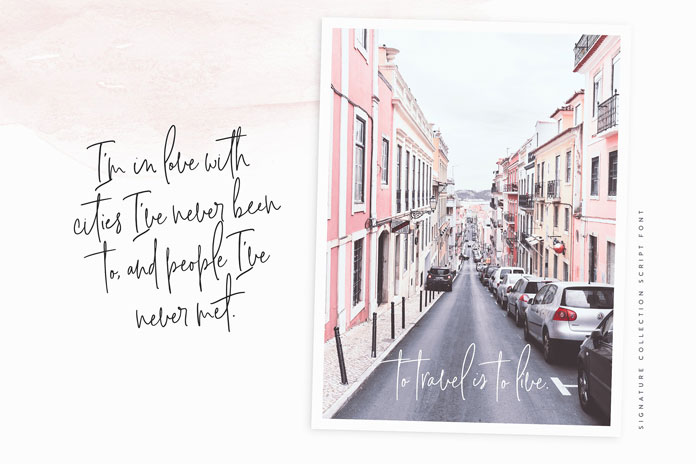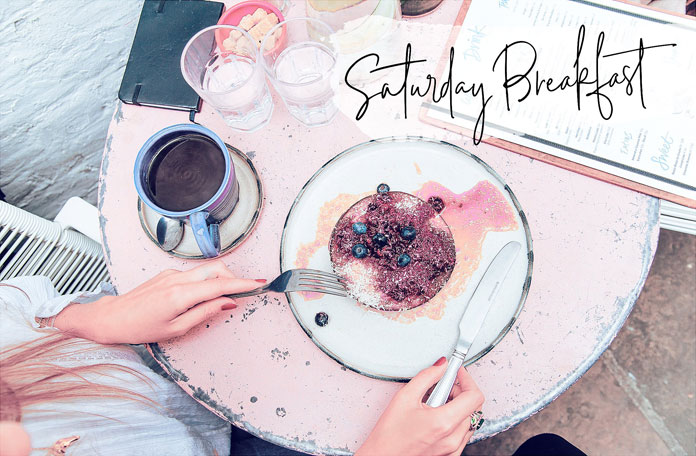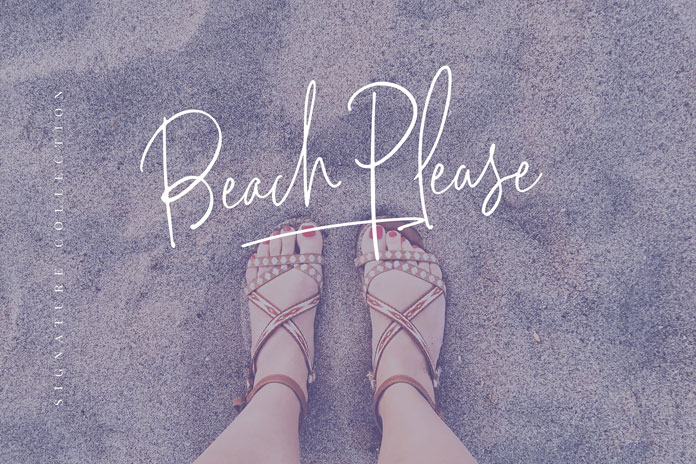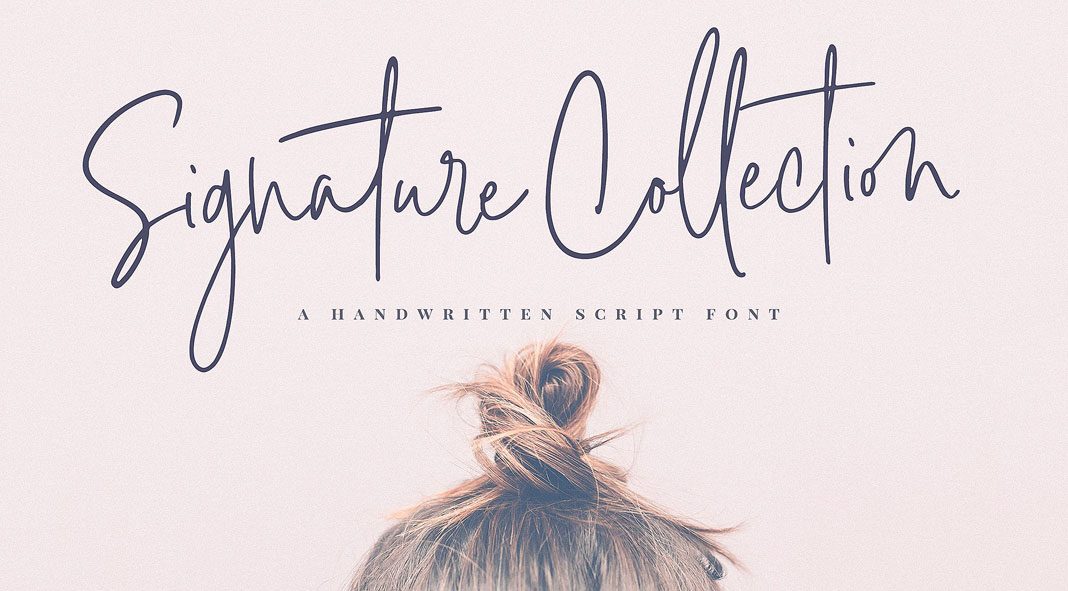
Signature Collection, a fashionable, handwritten script font by Nicky Laatz.
This font feels like a first breeze of the next summer. Designed by Nicky Laatz, the Signature Collection is based on a fashionable, handwritten script font with stylish extras. It comes with 110 ligatures, an extensive set of lowercase alternates, and additional watercolor textures. The textures are included as both transparent PNG files and Photoshop brushes. Nicky Laatz’ signature collection supports multiple languages including Cornish, Danish, English, Estonian, Faroese, Filipino, Finnish, French, Friulian, Galician, German, Gusii, Icelandic, Indonesian, Irish, Italian, Kabuverdianu, Kalenjin, Kinyarwanda, Luo, Luxembourgish,Norwegian Bokmål, Norwegian Nynorsk, Portuguese, Romansh, Scottish Gaelic, Spanish, and Swedish.
You can use it for plenty of applications and typographic work such as greeting cards, invitations, titles, quotes, business cards, logotypes, just to name a few. For additional information, just have a look at the following images or click on the link below.